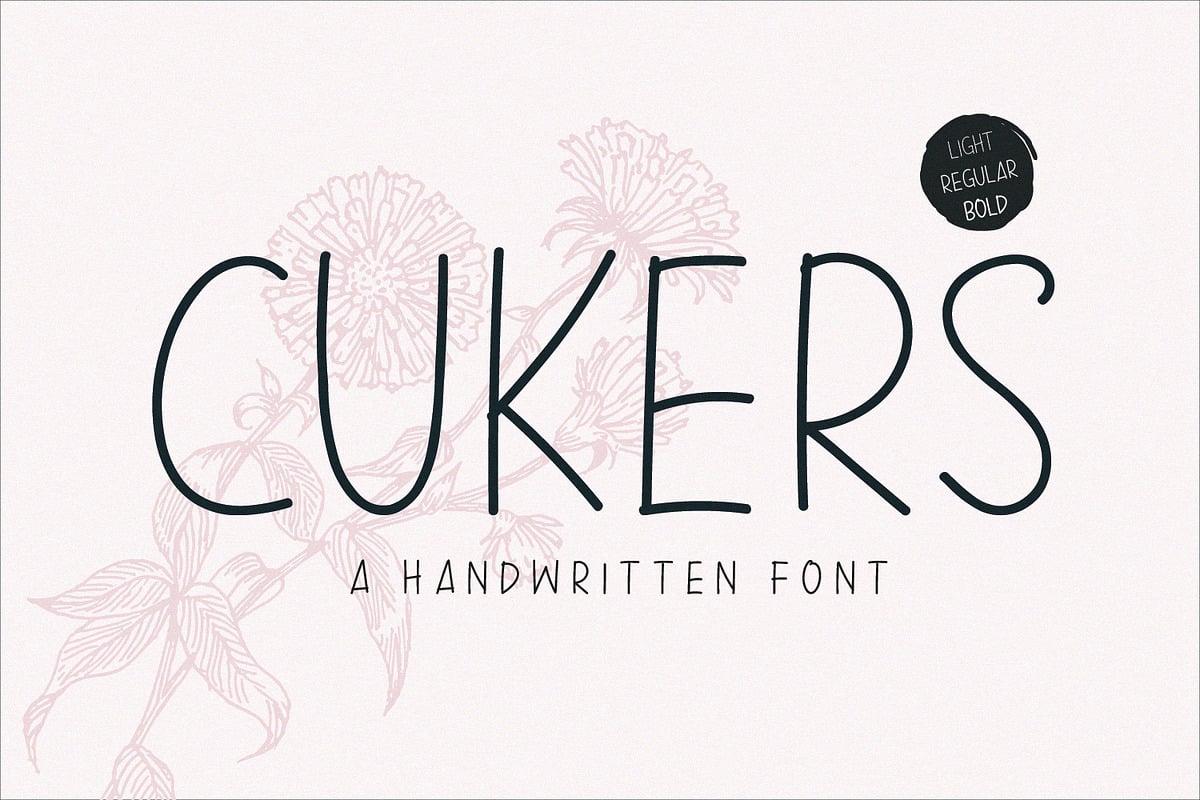
Cukers - A Handwritten Font
Clean lines, handcrafted soul — Cukers is the modern handwritten font built for bold, beautiful design work.
Meet Cukers, a bold and clean handwritten sans serif that blends minimalist structure with genuine hand-crafted charm. Whether you're working on high-end client projects or personal creative work, Cukers delivers personality and legibility in equal measure.
With three versatile weights — Light, Regular, and Bold — this font family gives you the flexibility to build striking typographic hierarchies across any layout.
- All Caps + Numbers + Symbols — clean, consistent, and stylish
Perfect For:
- Branding & Logo Design
- Social Media Posts & Quotes
- Website Headers & Blog Titles
- Packaging & Labels
- Editorial Layouts & Posters
- Digital Planners, Stickers, and more